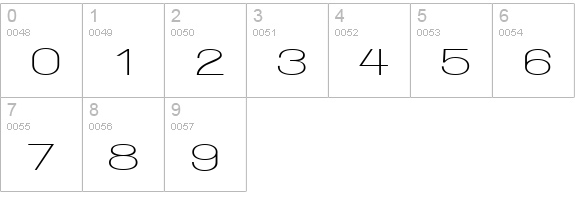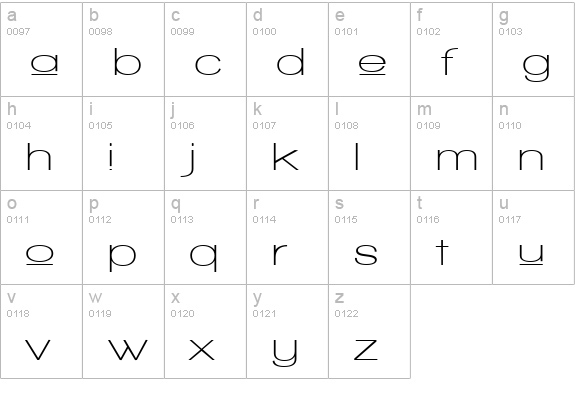
Walkway Upper Expand Semi font is a modern and stylish typeface that exudes sophistication and professionalism. Its sleek and bold design makes it perfect for a wide range of projects, from branding to advertising. The font features sharp edges and clean lines that give it a contemporary look, while also maintaining a sense of elegance. What sets Walkway Upper Expand Semi font apart is its versatility - it can be used for both headlines and body text, making it a great choice for both print and digital designs. Whether you're working on a poster, website, or logo, this font is sure to make a statement and elevate your design. The best part is that Walkway Upper Expand Semi font is completely free to download at FontsMarket.com. So go ahead and add this stunning font to your collection today and take your designs to the next level!